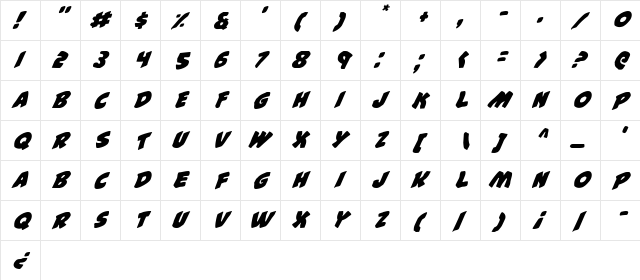
#44 Font Italic Italic
Design Context for #44 Font Italic Typeface
#44 Font Italic is a composed and adaptable typeface that performs quietly and consistently across a wide range of design contexts. The dynamic lean of this cut emphasises speed and emphasis in any layout.
Pro Tip: Use #44 Font Italic for emphasis, pull quotes, and subheadings where its slanted energy can add rhythm to the layout.